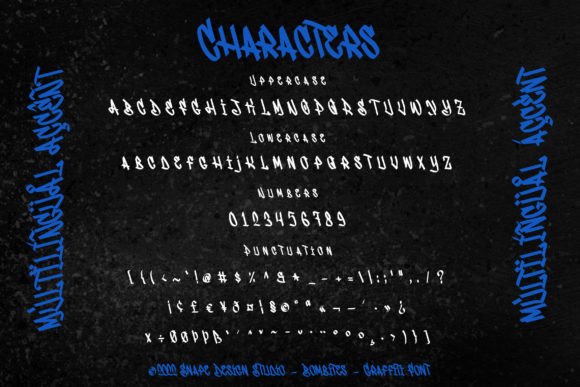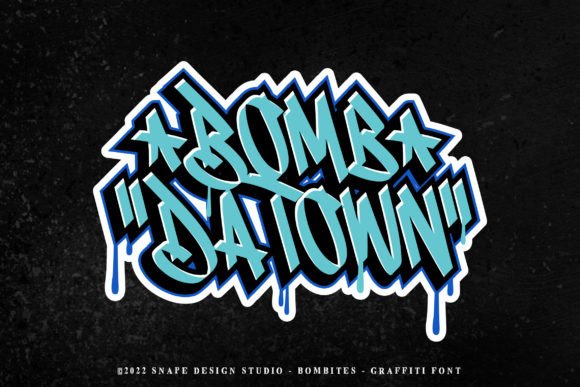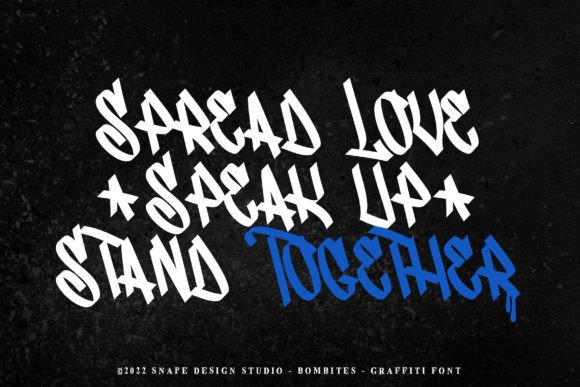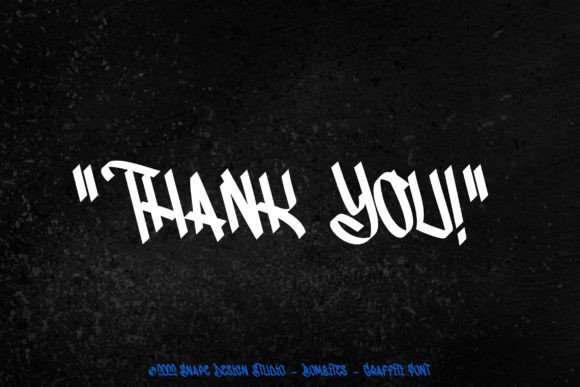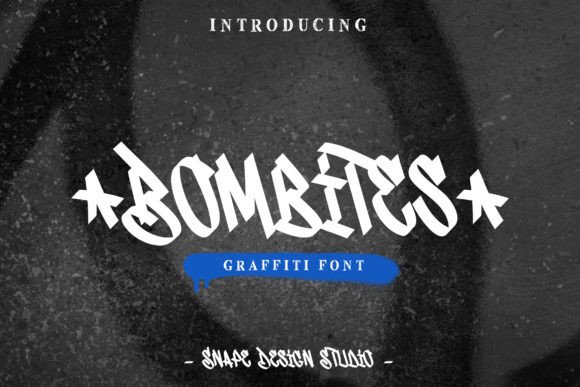
Bombites Font: The Ultimate Urban Display Font for Designers and Crafters
In the world of typography, fonts play a crucial role in conveying the tone and personality of a design project. For designers and crafters looking to add an edgy, urban touch to their work, the Bombites font is an excellent choice. Inspired by typical street art calligraphy, Bombites is a cool and trendy display font that is perfect for making a statement.
The Urban, Hip Aesthetic of Bombites
Bombites font is characterized by its graffiti-style characters, which are designed to evoke the spirit of street art. The font’s urban, hip aesthetic makes it an ideal choice for designers and crafters who want to add an authentic touch to their projects. Whether you’re working on a branding project, a packaging design, or a marketing campaign, Bombites font is sure to grab attention and leave a lasting impression.
Key Features of Bombites Font
- Graffiti-style characters: Bombites font features bold, expressive characters that are reminiscent of street art.
- Urban, hip aesthetic: The font’s edgy, urban look makes it perfect for designers and crafters who want to add a cool, trendy touch to their projects.
- Display font: Bombites is a display font, making it ideal for use in headlines, titles, and other prominent design elements.
- Easy to read: Despite its bold, graffiti-style characters, Bombites font is surprisingly easy to read, making it a versatile choice for a wide range of design projects.
Uses for Bombites Font
Bombites font is a versatile design asset that can be used in a variety of contexts. Here are some ideas for using Bombites font in your design projects:
- Branding and logos: Use Bombites font to create bold, eye-catching logos and branding elements that make a statement.
- Packaging design: Add a touch of urban flair to your packaging designs with Bombites font.
- Marketing campaigns: Use Bombites font to create attention-grabbing headlines and titles for your marketing campaigns.
- Streetwear and apparel: Bombites font is a natural fit for streetwear and apparel designs, adding an edgy, urban touch to t-shirts, hoodies, and other clothing items.
Tips for Using Bombites Font
Here are some tips for getting the most out of Bombites font:
- Use it sparingly: Bombites font is a bold, attention-grabbing font that can quickly overwhelm a design. Use it sparingly to create maximum impact.
- Pair it with contrasting fonts: Pair Bombites font with contrasting fonts to create visual interest and add depth to your design.
- Experiment with colors: Bombites font looks great in bold, bright colors. Experiment with different colors to find the perfect look for your design.
Bombites font is a cool and trendy display font that is perfect for designers and crafters looking to add an urban, hip touch to their projects. With its graffiti-style characters and bold, expressive aesthetic, Bombites font is sure to make a statement. Whether you’re working on a branding project, a packaging design, or a marketing campaign, Bombites font is an excellent choice.